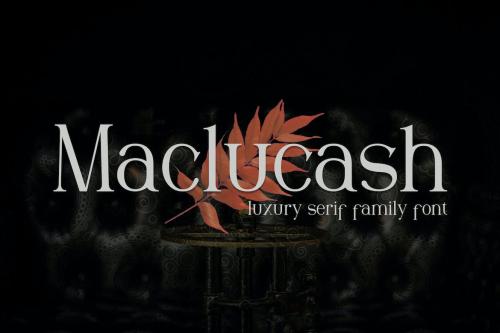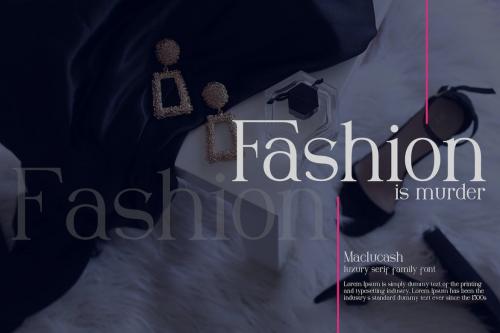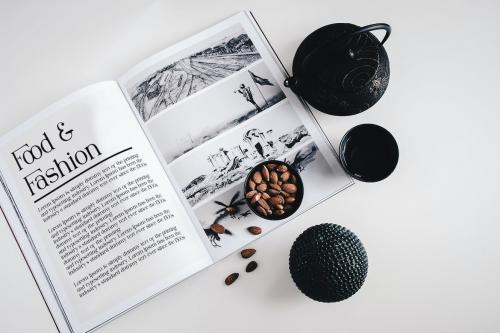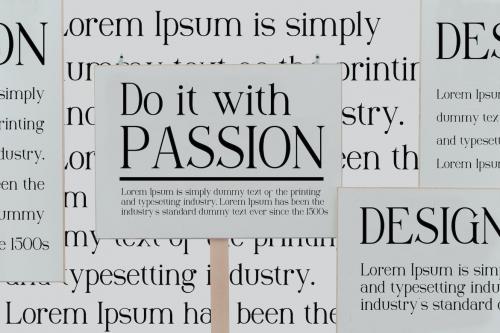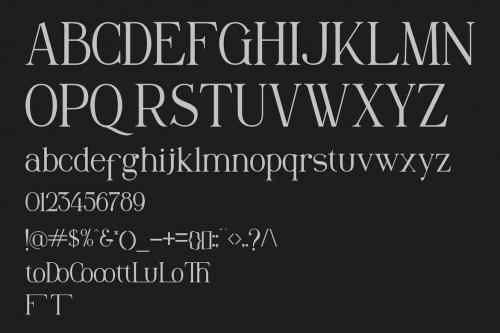
马克卢卡什字体
**Maclucash Font**
This pair was inspired by the Music poster design that i saw on some coffee shop, It was crafted by hand specially to add natural handmade feeling in its brand identity than i make it clean with pentool.
**Opentype features**
Maclucash font has 181 character set included
Maclucash Font is very good looking in logo, labels, t-shirt prints, product packaging, invitations, advertising and others.